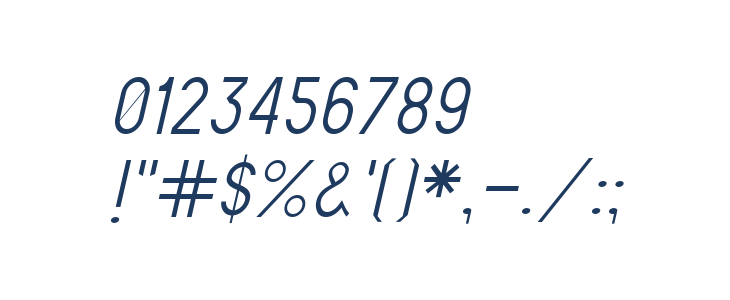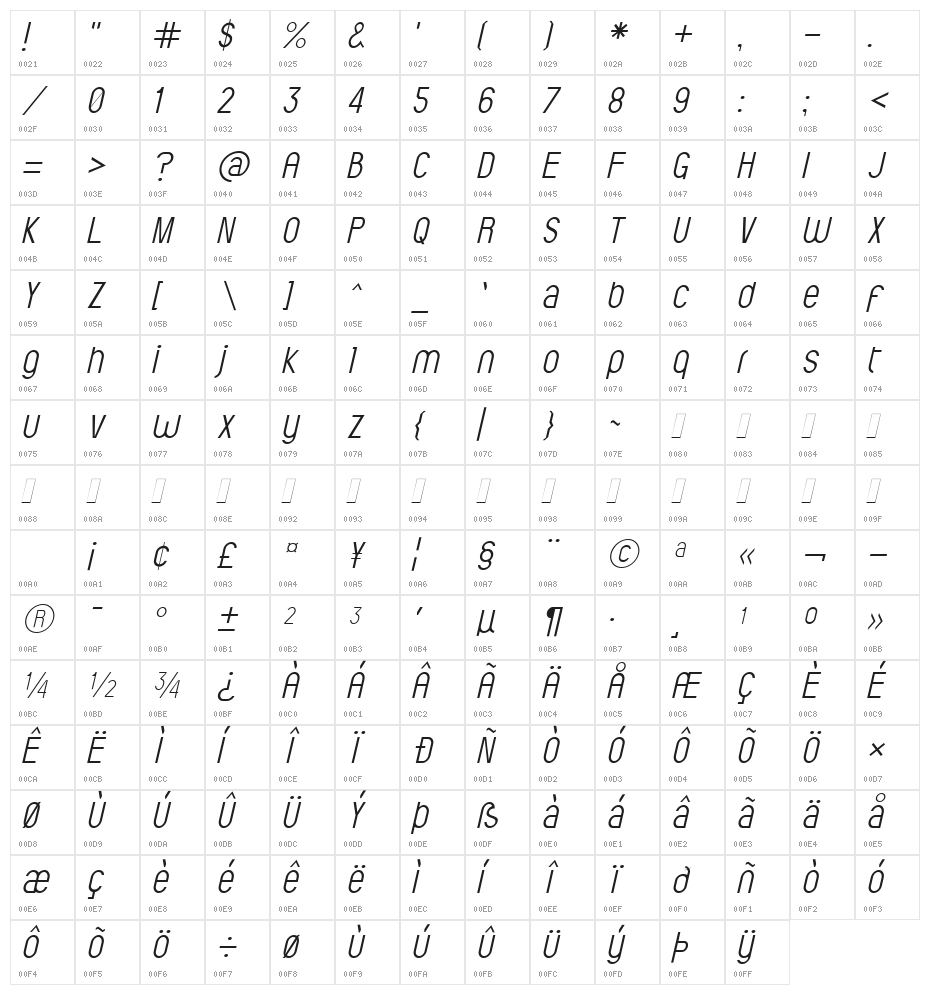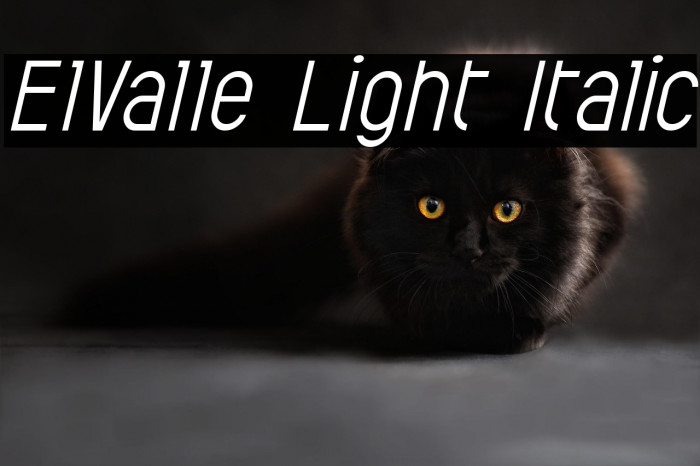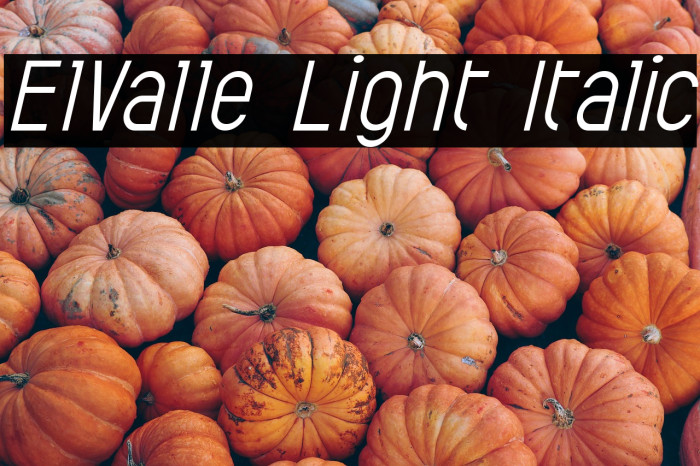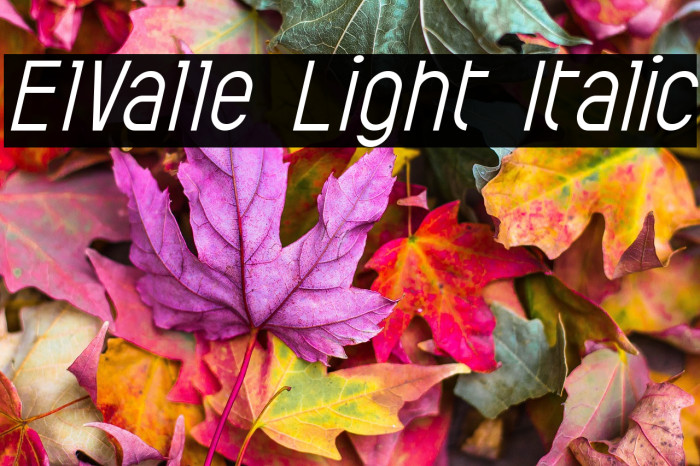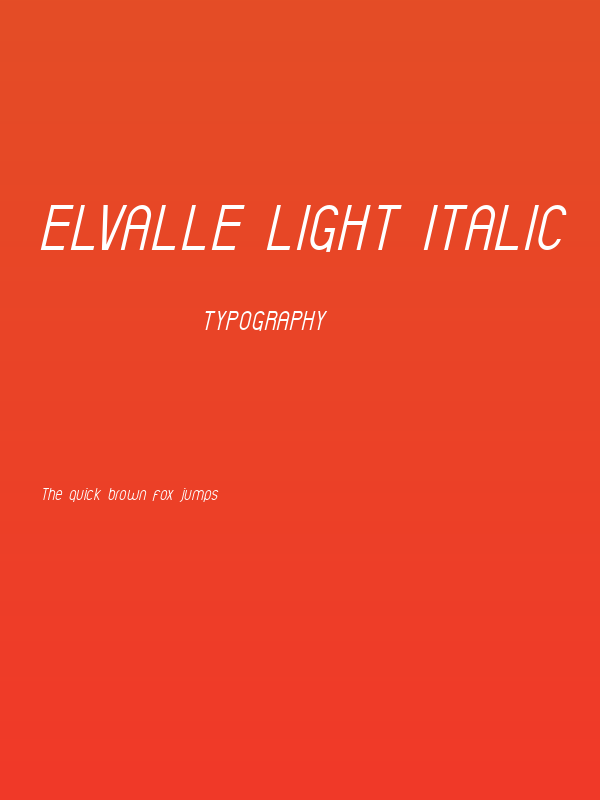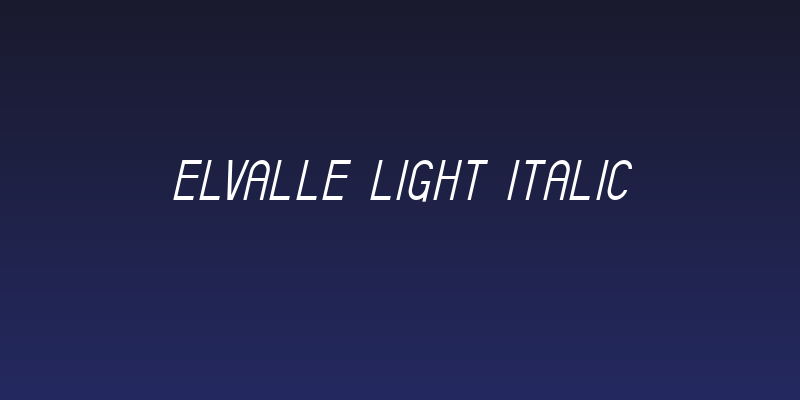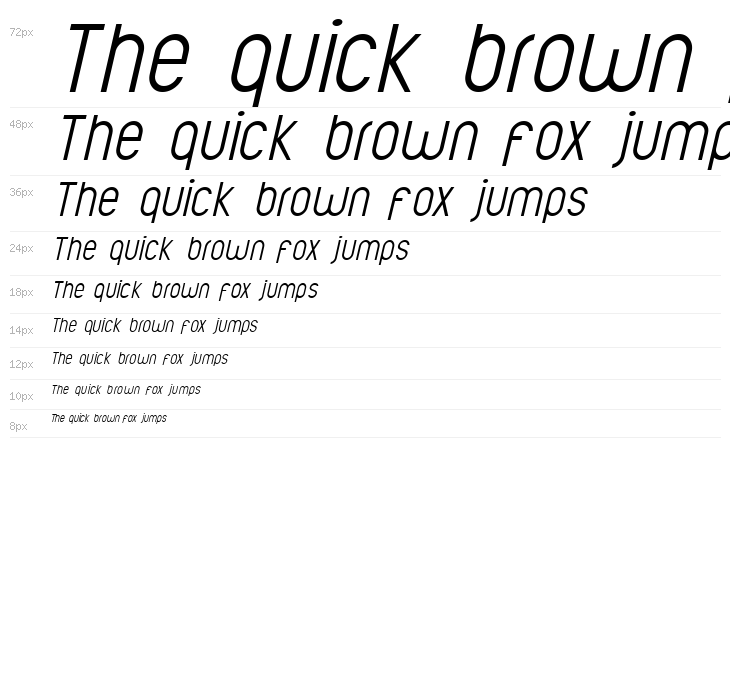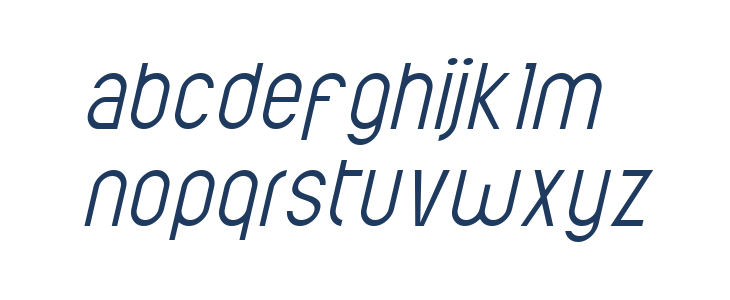
ElValle Light Italic Font
ElValle Light Italic Description
This font features a sleek, modern design with a light weight and italic style. The characters are slightly condensed, giving it a streamlined appearance. The strokes are consistent in thickness, providing a uniform look across all characters. The font maintains a clean and professional aesthetic, making it suitable for a variety of design applications. Its italic nature adds a touch of elegance and dynamism, while the light weight ensures readability and a subtle presence on the page. The character spacing is normal, allowing for easy legibility without appearing cramped.